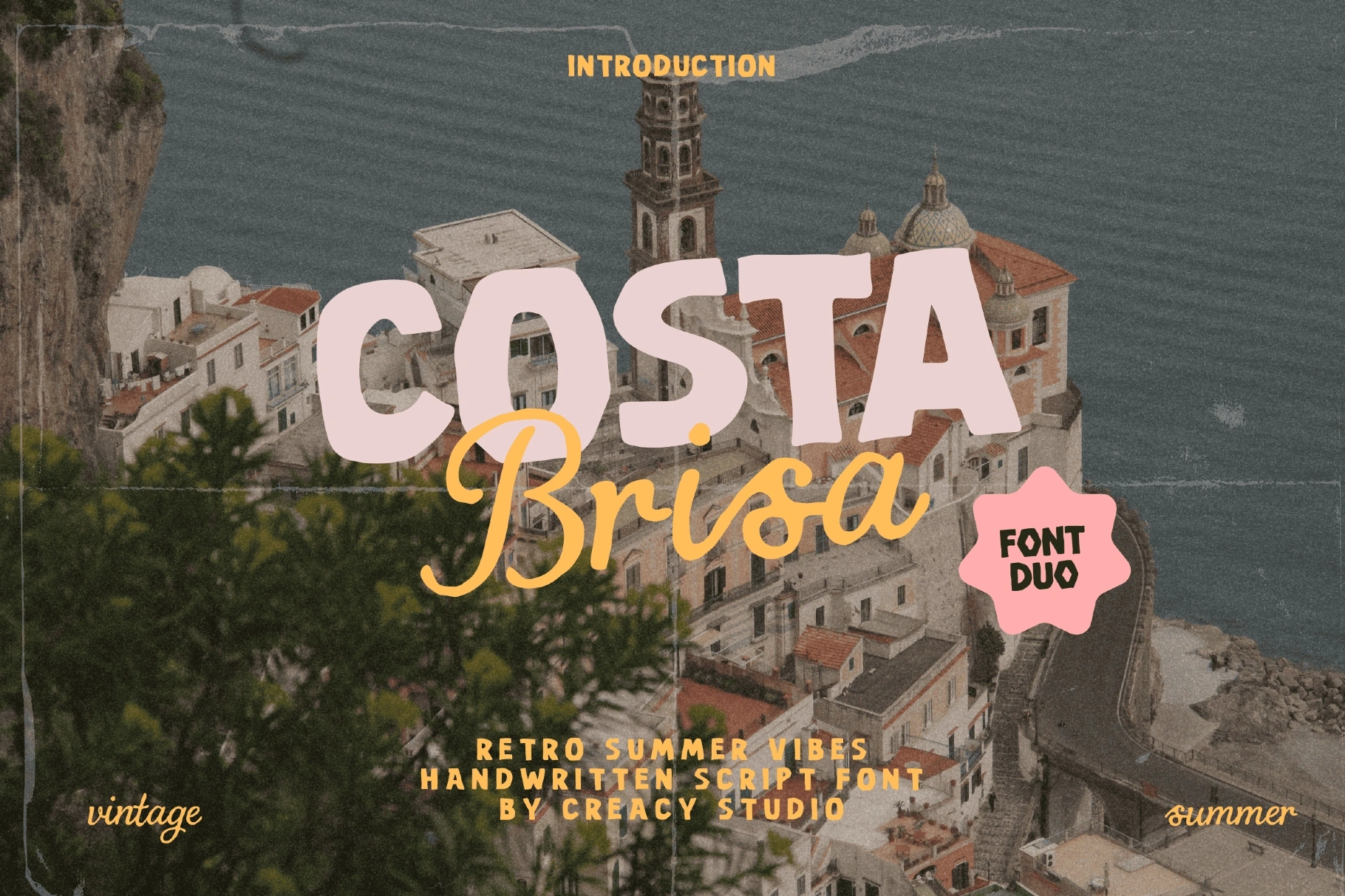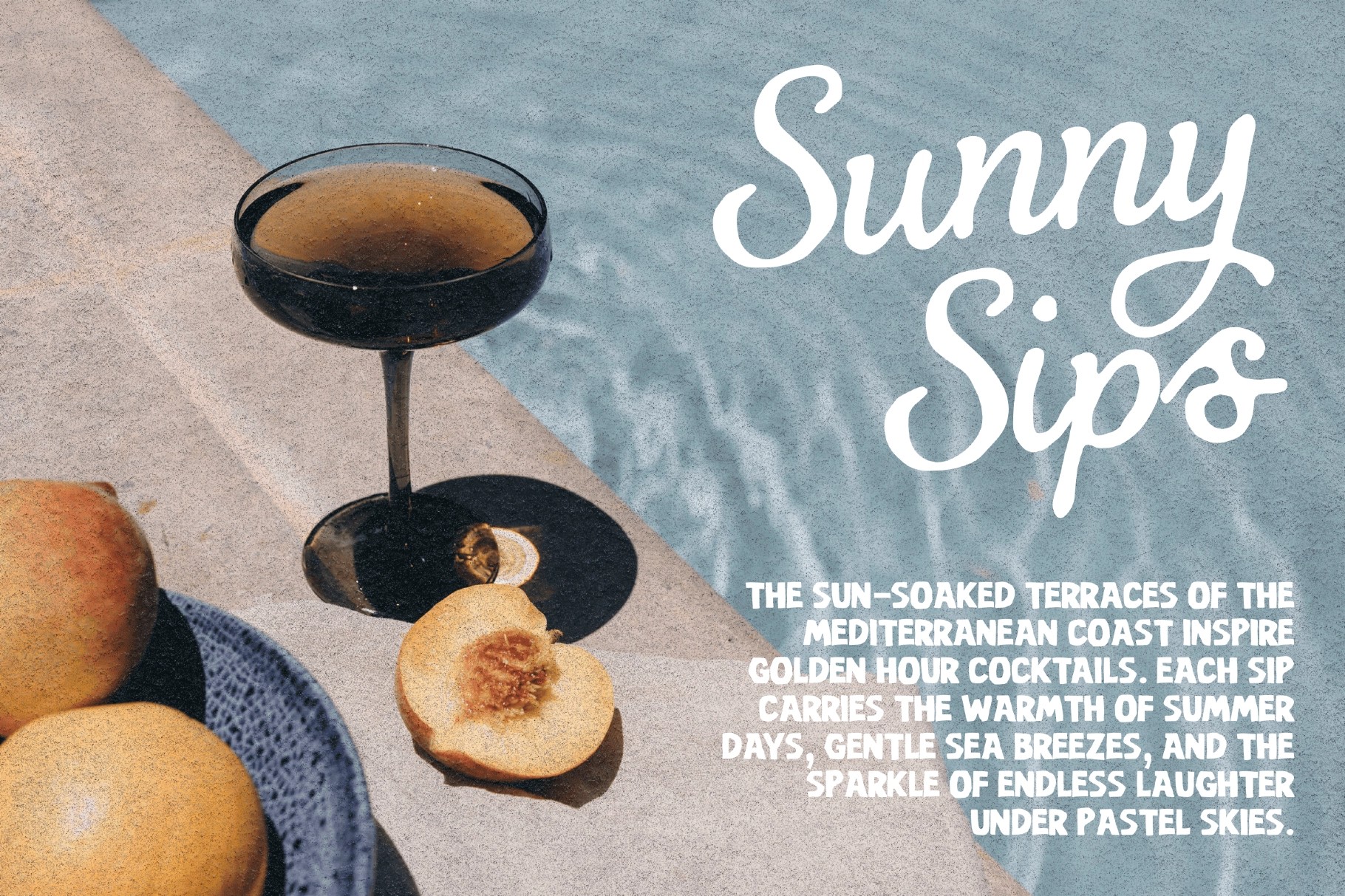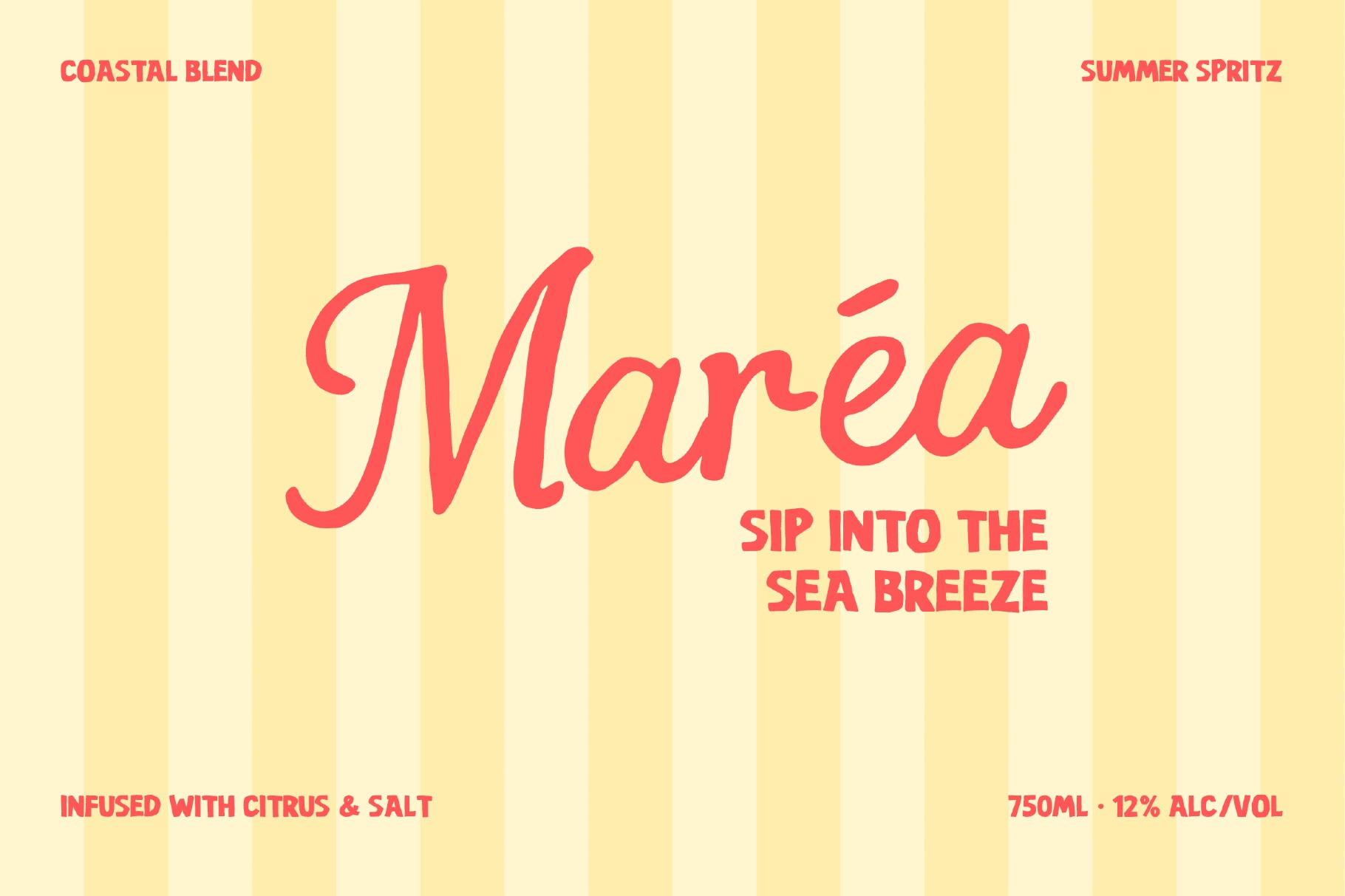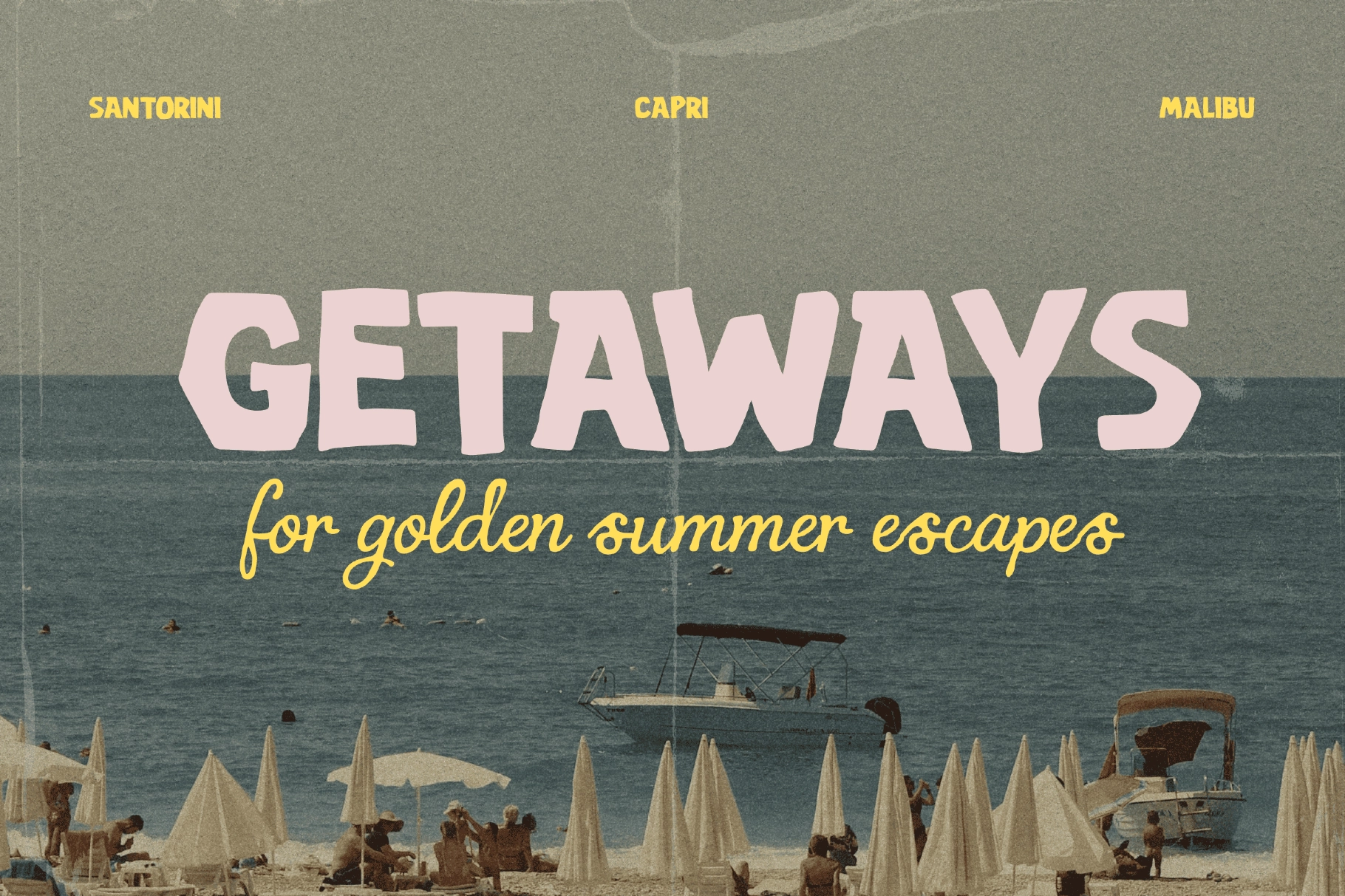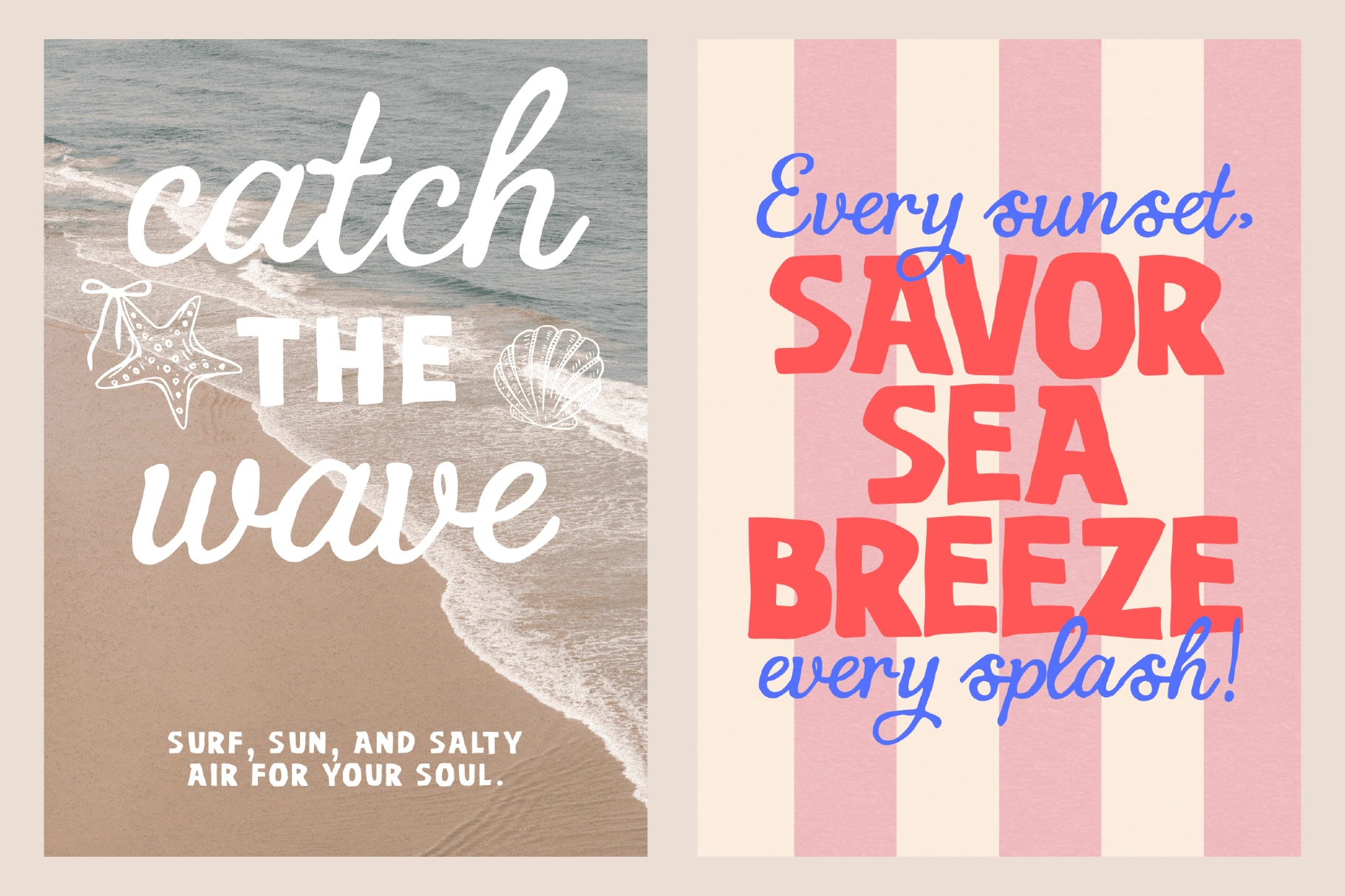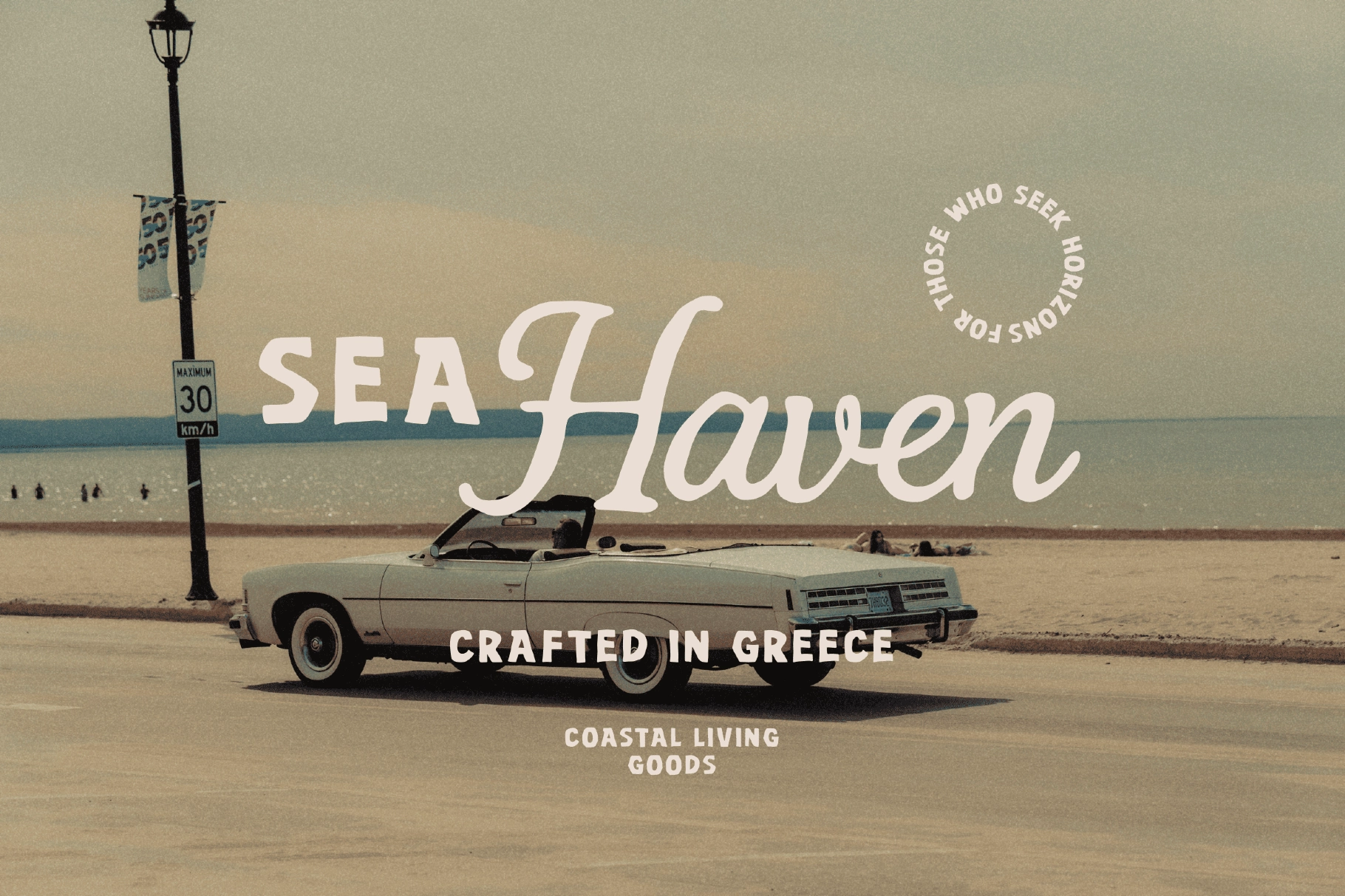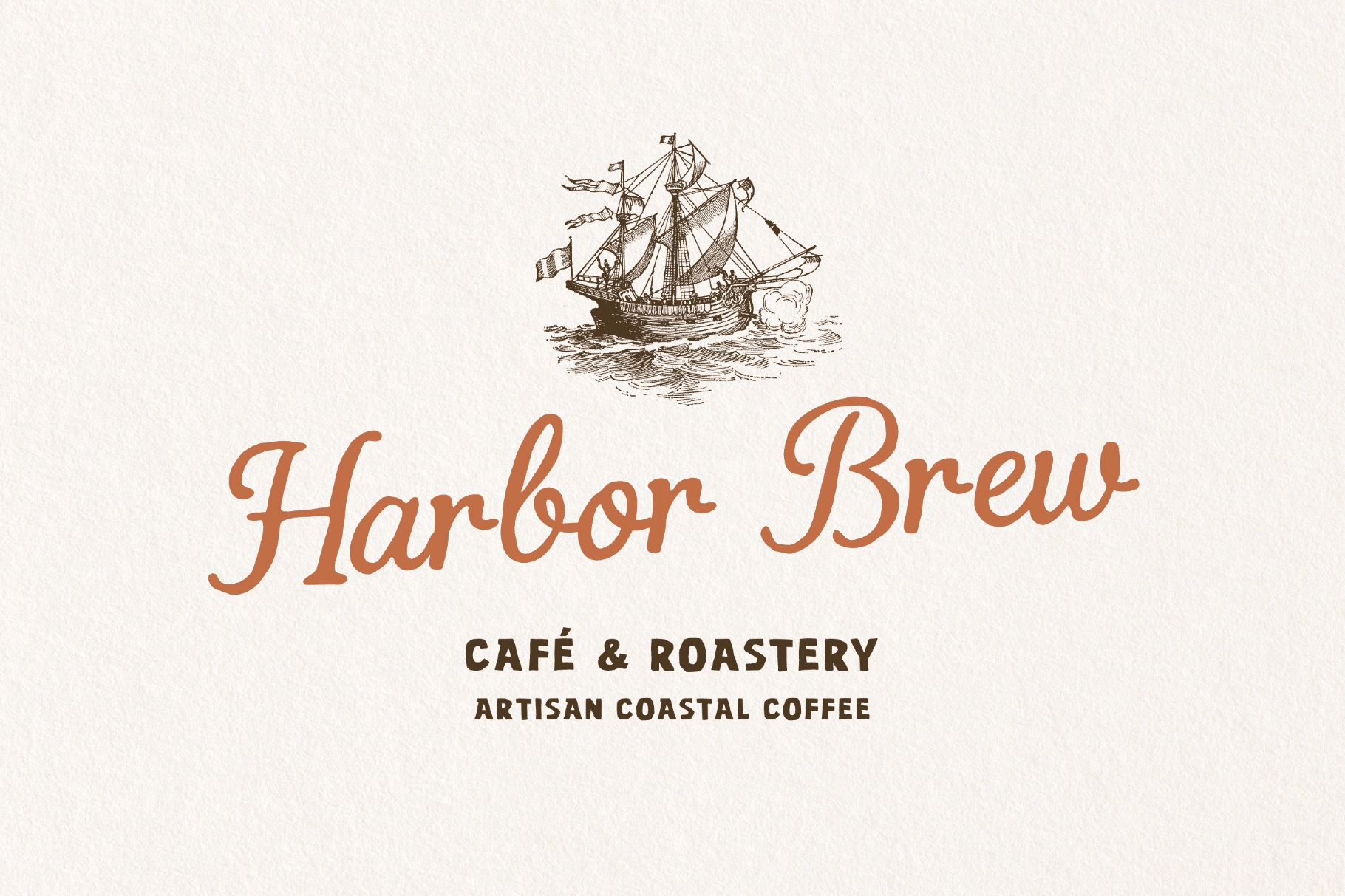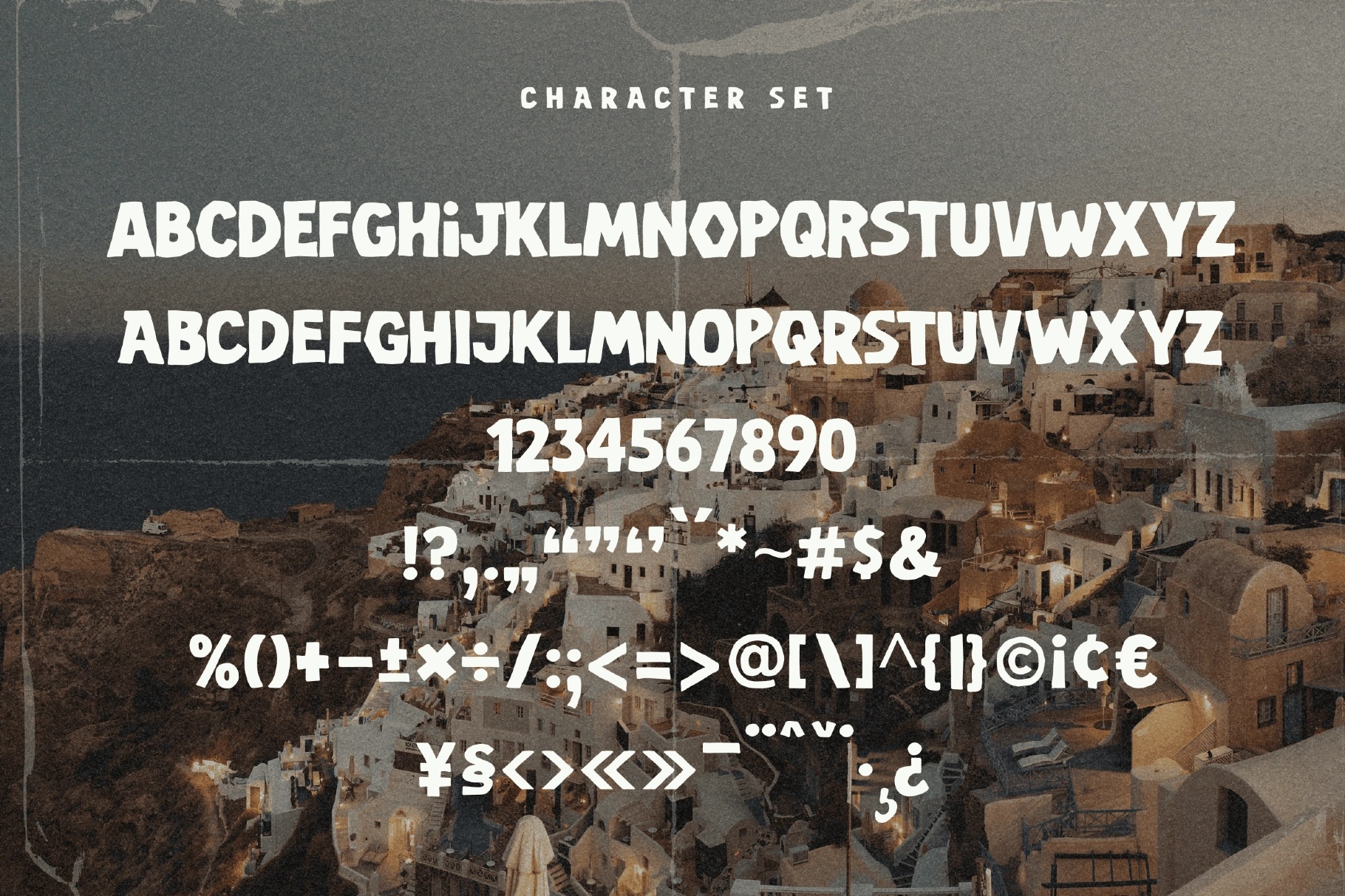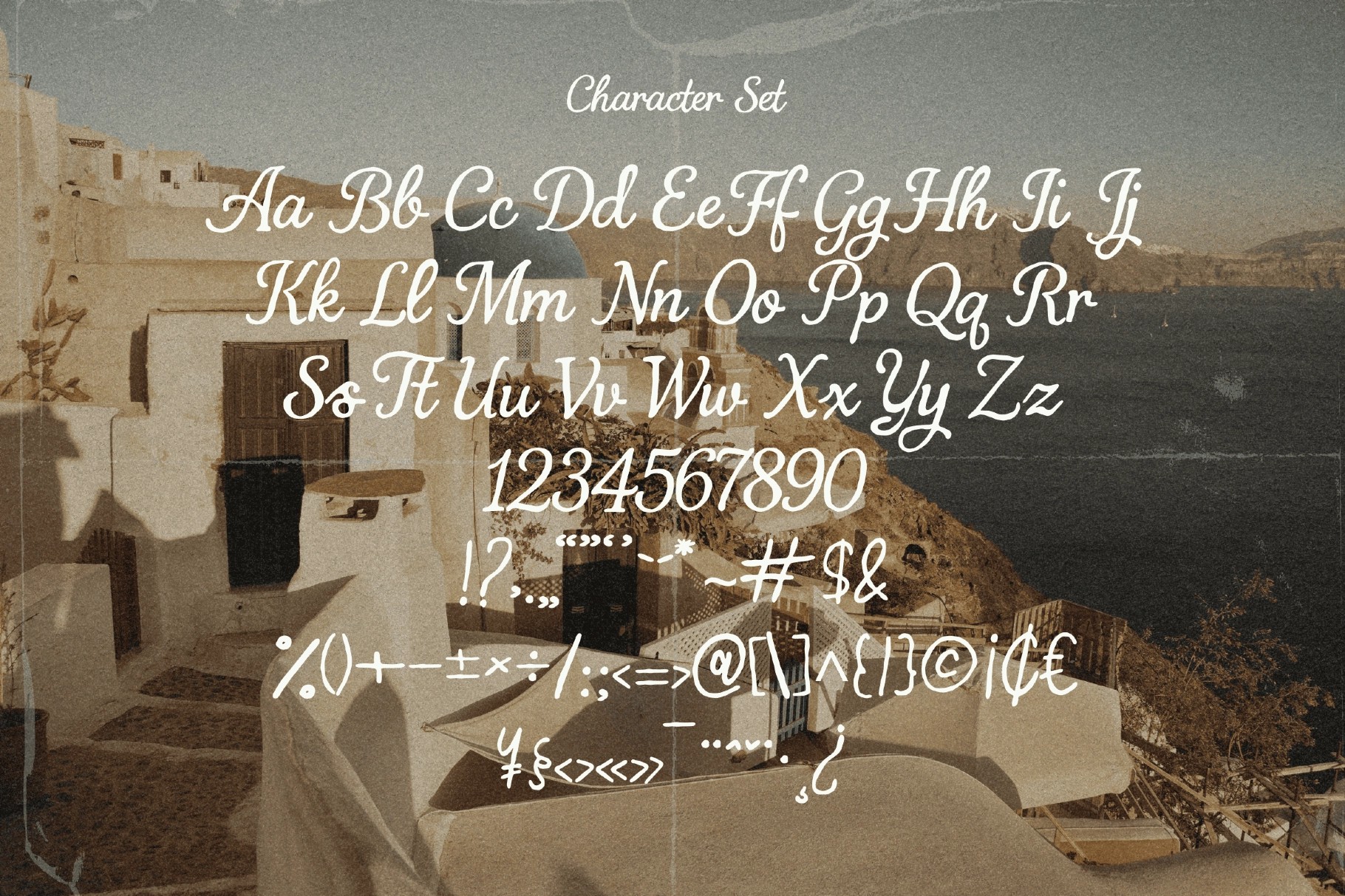
Costa Brisa – Retro Summer Font Duo
Let your designs drift into a golden summer with Costa Brisa, a playful Retro Font Duo inspired by sun-drenched beaches, vintage postcards, and warm coastal nostalgia.
This duo pairs a bold retro script with a clean sans companion , offering endless combinations for logos, packaging, and editorial design. Each curve and line carries a breezy rhythm — perfect for bringing the carefree spirit of the ’70s back to life.
Whether you’re crafting a surf café logo, a travel magazine headline, or a retro fashion label, Costa Brisa adds that effortless coastal charm your designs have been waiting for.
Breathe the seaside vibe into your work with Costa Brisa – a retro summer font duo made for sunshine and stories.